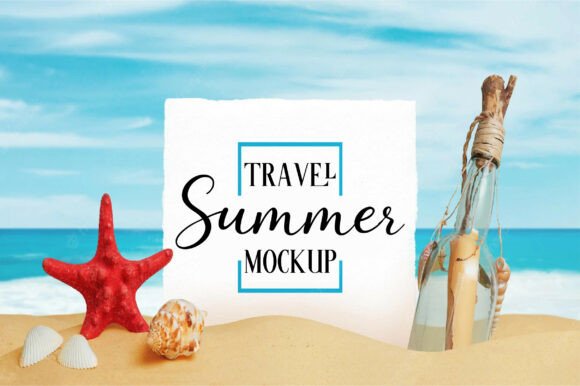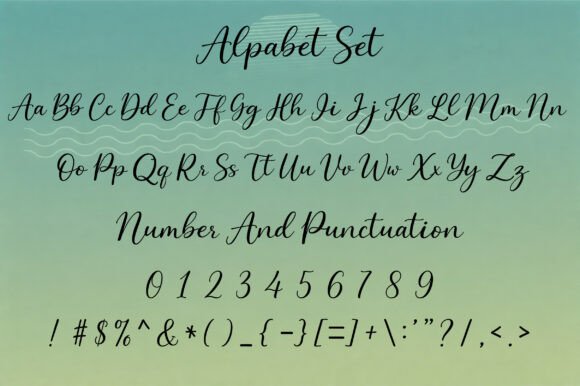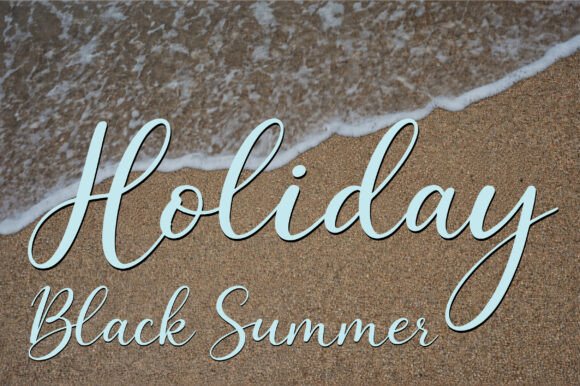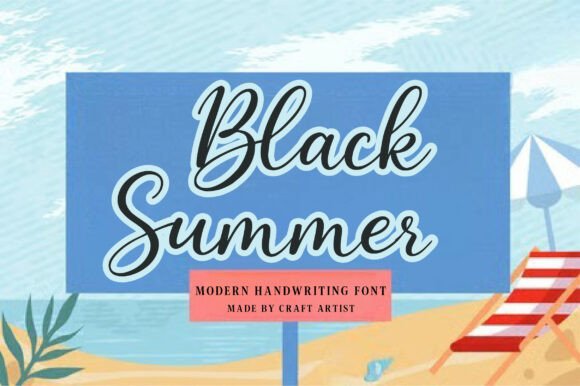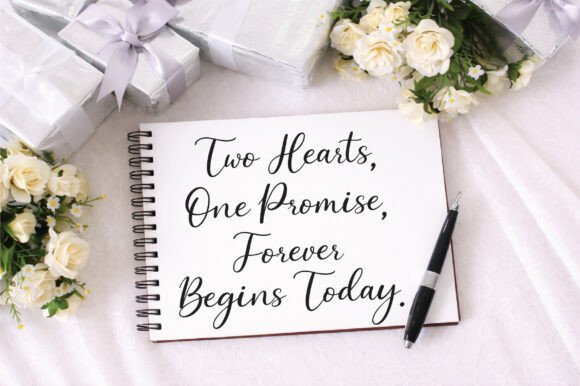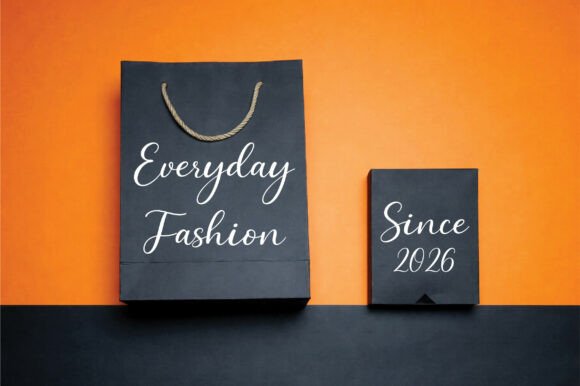
Introducing Black Summer Font: Elevate Your Designs with a Fresh and Relaxed Summer Vibe
Are you looking for a font that captures the essence of summer? Do you want to add a touch of elegance and creativity to your designs? Look no further than Black Summer Font, a stylish and modern handwriting font designed to bring a fresh and relaxed summer vibe to your creative projects.
Perfect for Summer Branding and Designs
Black Summer Font is perfect for summer branding, beach-themed designs, logos, invitations, posters, packaging, social media graphics, and lifestyle projects. Its unique and stylish lettering is sure to make your designs stand out and leave a lasting impression. Whether you’re designing for print or digital use, Black Summer Font is the perfect choice.
What Makes Black Summer Font Special?
Black Summer Font is more than just a font – it’s a design statement. Its modern handwriting style is both elegant and playful, making it perfect for a wide range of design applications. Here are some of the key features that make Black Summer Font special:
- Unique and Stylish Lettering: Black Summer Font features a unique and stylish lettering style that is sure to make your designs stand out.
- Modern Handwriting Style: The font’s modern handwriting style is both elegant and playful, making it perfect for a wide range of design applications.
- Fresh and Relaxed Summer Vibe: Black Summer Font is designed to bring a fresh and relaxed summer vibe to your designs, making it perfect for summer branding and designs.
- Perfect for Print and Digital Use: Whether you’re designing for print or digital use, Black Summer Font is the perfect choice.
How to Use Black Summer Font in Your Designs
Black Summer Font is easy to use and can be incorporated into a wide range of design applications. Here are some ideas for using Black Summer Font in your designs:
- Summer Branding: Use Black Summer Font to create eye-catching summer branding that captures the essence of the season.
- Beach-Themed Designs: Add a touch of summer charm to your beach-themed designs with Black Summer Font.
- Logos and Icons: Use Black Summer Font to create unique and stylish logos and icons that make your brand stand out.
- Invitations and Posters: Create eye-catching invitations and posters with Black Summer Font that are sure to grab attention.
- Packaging and Social Media Graphics: Use Black Summer Font to add a touch of summer charm to your packaging and social media graphics.
Tips for Getting the Most Out of Black Summer Font
Here are some tips for getting the most out of Black Summer Font:
- Experiment with Different Colors: Black Summer Font looks great in a variety of colors, so don’t be afraid to experiment and find the perfect color for your design.
- Pair with Other Fonts: Black Summer Font pairs well with other fonts, so try pairing it with a bold font for headings and a clean font for body text.
- Use in Combination with Summer Imagery: Use Black Summer Font in combination with summer imagery, such as palm trees, sunflowers, and beach balls, to create a cohesive and eye-catching design.
Black Summer Font is a stylish and modern handwriting font that is perfect for adding a fresh and relaxed summer vibe to your creative projects. With its unique and stylish lettering, modern handwriting style, and fresh and relaxed summer vibe, Black Summer Font is the perfect choice for summer branding, beach-themed designs, logos, invitations, posters, packaging, social media graphics, and lifestyle projects. So why wait? Download Black Summer Font today and start creating stunning designs that capture the essence of summer!